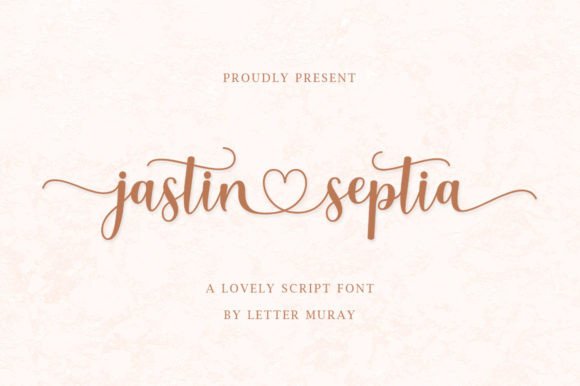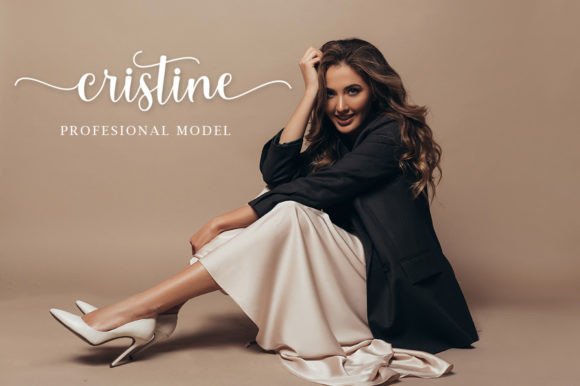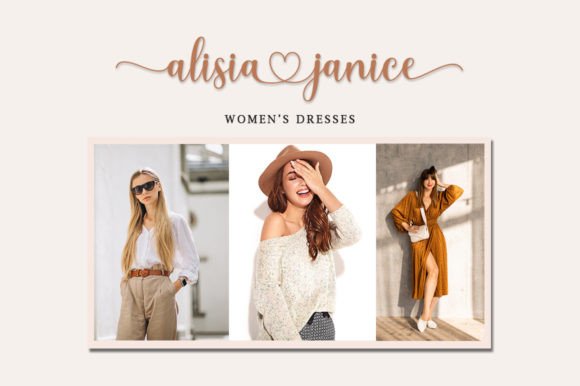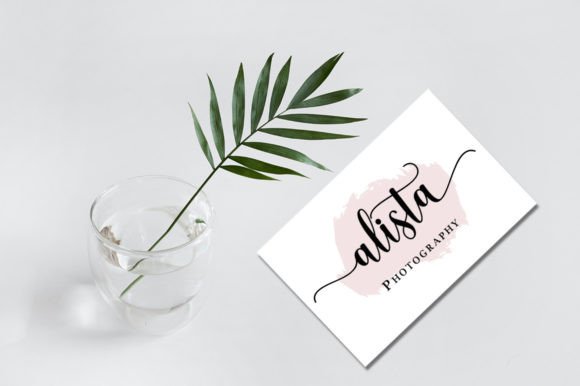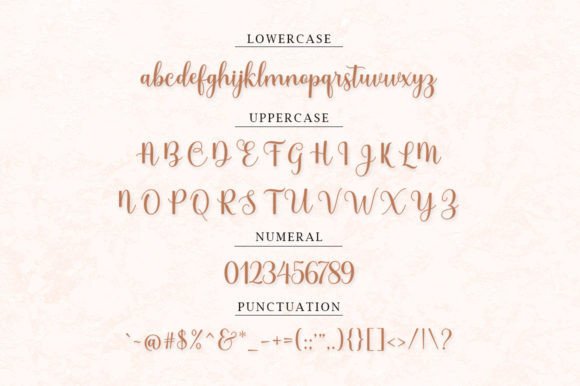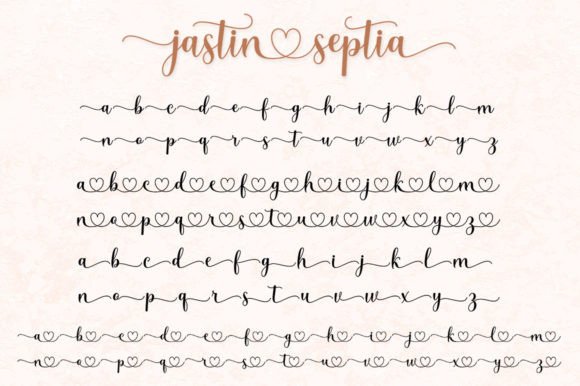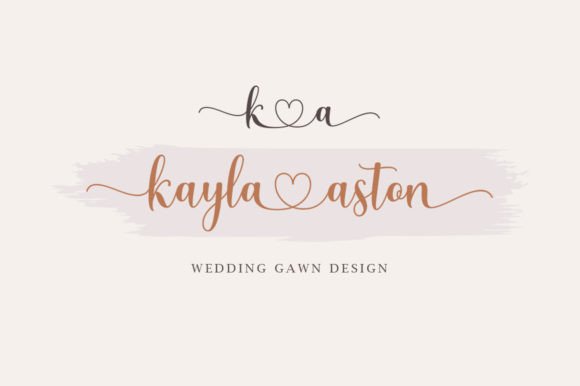
Jastin Septia
About Jastin Septia
Jastin Septia feels equally charming and elegant. It looks lovely on wedding invitations, thank you cards, quotes, greeting cards, logos, business cards and every other design which needs a handwritten touch.